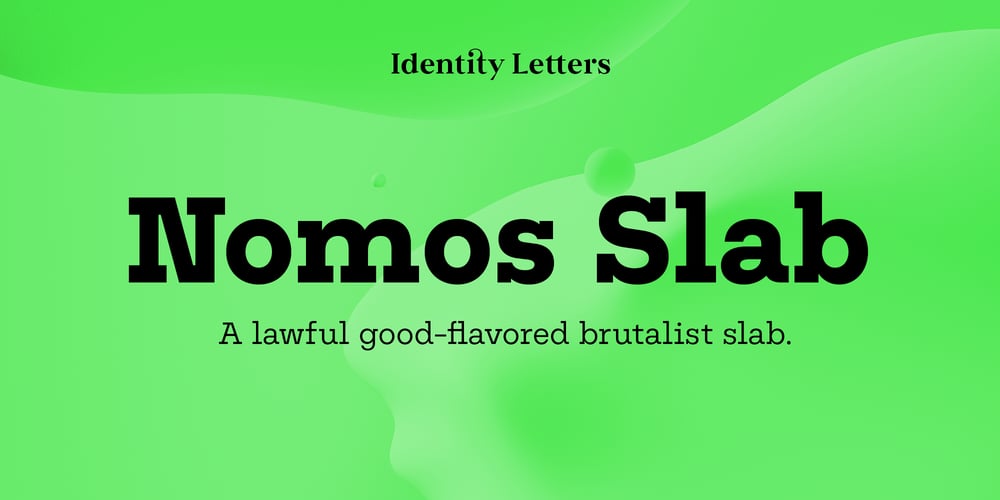
Nomos Slab Font Family was designed by Moritz Kleinsorge and published by Identity Letters. Nomos Slab contains 18 styles and family package options. What is a brutalist typeface? The exact definition is anyone’s guess. Regardless, the Nomos superfamily is our take on the genre. Like the eponymous architectural style, Nomos is raw, direct, and honest. Its unrefined aesthetics reveal an orderly construction that is as firmly rooted in classic modernism as in the internet age—with simple, functional letterforms and the blunt convergence of diagonal and vertical stems. The low-contrast Nomos Slab subfamily has 18 styles and a set of 1000+ characters. Its tense curves let it shine in contemporary applications such as UI/UX design, AR/VR apps, and multimedia branding everywhere from banking to beverages. Pairs gracefully with Nomos Sans.